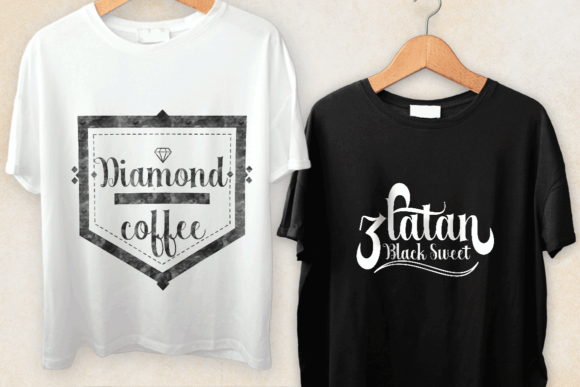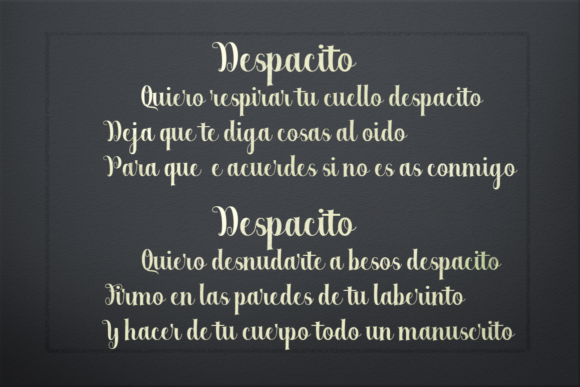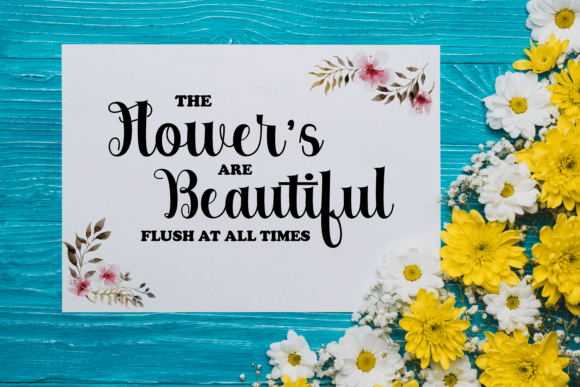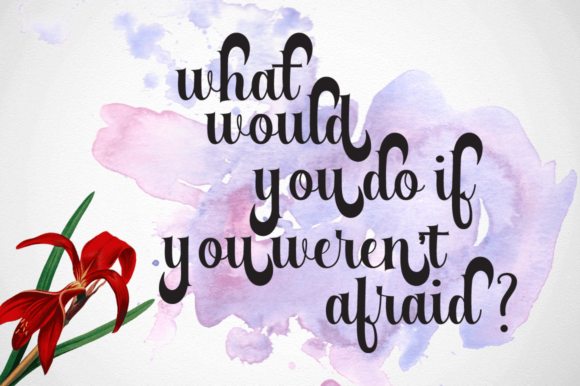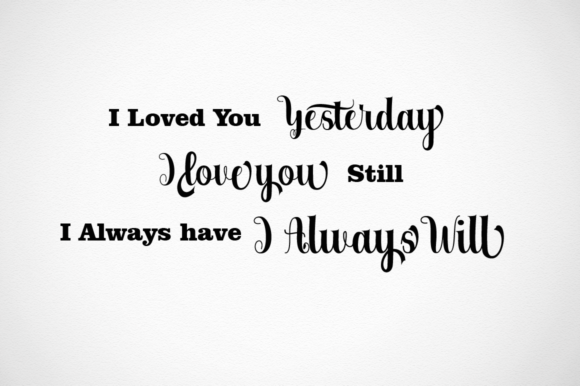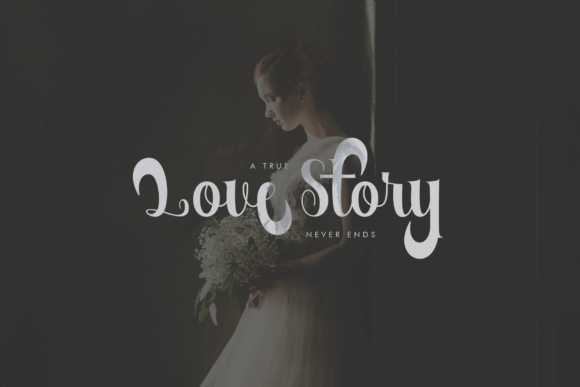
The Designer’s Delight: Unpacking the Elegance of Berkarya Font
Have you ever been in the middle of a design project, and suddenly, it hits you – the font you’ve chosen just isn’t doing it justice? I recall a particularly frustrating experience while working on a branding project for a luxury client. The brief was simple: create a sophisticated, modern look that exudes elegance. After hours of scouring through font libraries, I stumbled upon Berkarya Font. It was love at first sight! ✨ The high-contrast lines, the poppy modern feel – it was exactly what I needed to elevate my design.
An Honest Review of Berkarya Font
- ✨ High-contrast design that adds a touch of sophistication to any project
- ✅ Modern feel that’s perfect for contemporary brands and designs
- 💫 Elegant lines that bring a sense of luxury and refinement
- 🎨 Versatile – suitable for a wide range of projects, from branding to advertising
While Berkarya Font is a stunning addition to any design project, there are a few things to keep in mind. 🤔 For instance:
- ⚠️ It may not be the best choice for body text due to its high-contrast nature, which can be challenging to read in large blocks.
- ⚠️ Some users might find the font’s modern feel too trendy, which could impact its longevity in a design.
- Take advantage of stylistic alternates and glyphs to customize your text.
The Story Behind Berkarya Font
Berkarya Font was designed with the modern designer in mind. Its creator sought to craft a font that combines elegance with a poppy, modern aesthetic. Inspired by the beauty of high-contrast typography, Berkarya aims to bring a touch of sophistication to any design project. While the exact backstory might be shrouded in mystery, one thing is clear – Berkarya Font has become a favorite among designers looking for that special something.
Q: What makes Berkarya Font stand out?
A: Berkarya Font stands out due to its high-contrast design and modern feel, making it perfect for adding elegance to a wide range of projects.
Q: Is Berkarya Font difficult to read?
A: While Berkarya Font is elegant and sophisticated, its high-contrast nature might make it less suitable for large blocks of text. It’s best used for titles, headings, or short paragraphs.